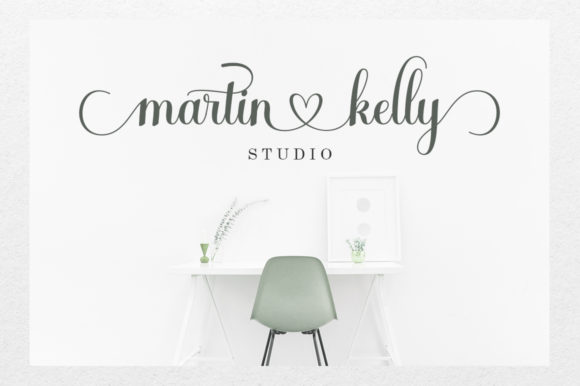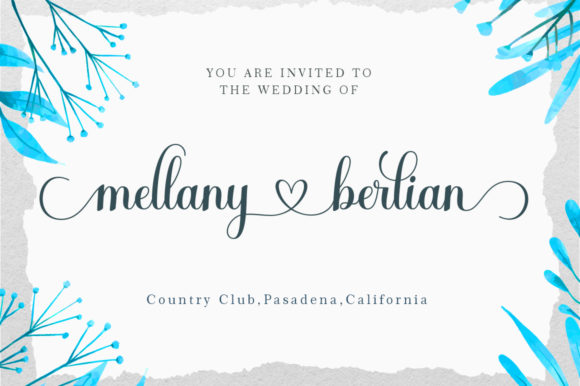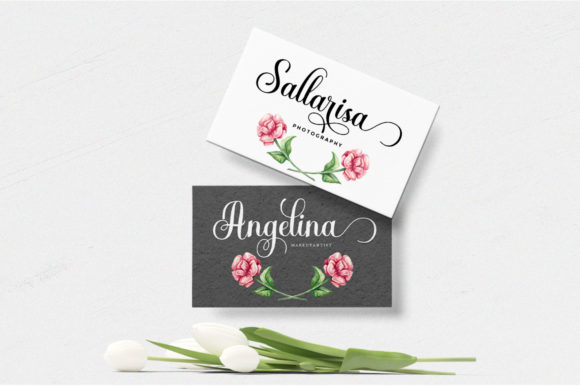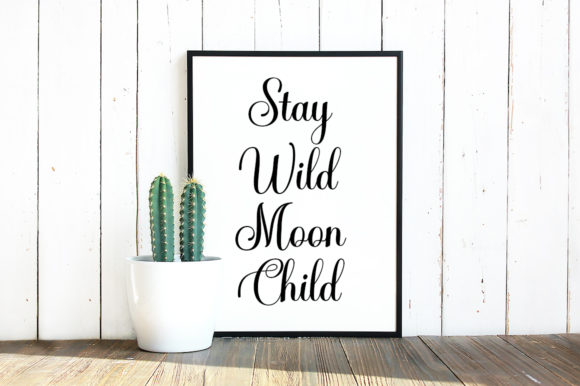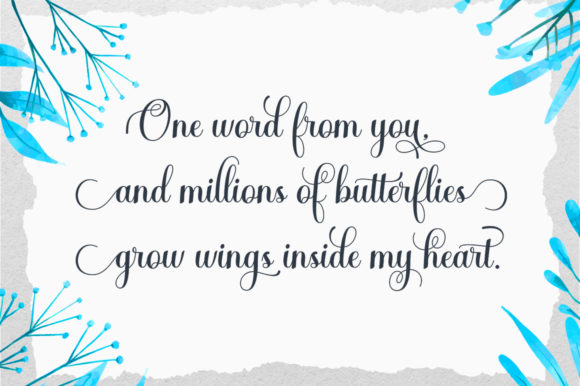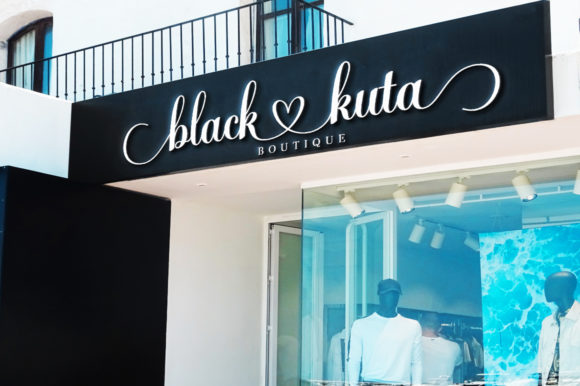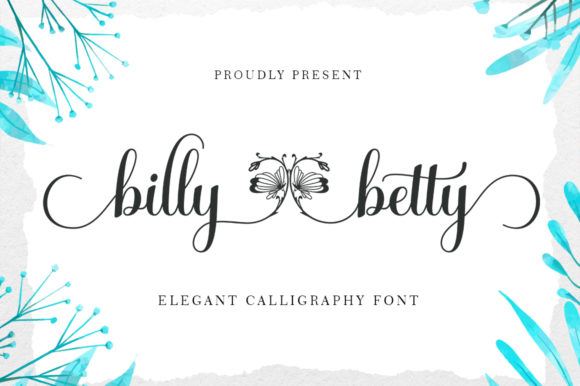
Billy Betty Font: The Elegant Calligraphy Font for Romantic Designs
Are you a designer or crafter looking for a font that exudes elegance and romance? Look no further than the Billy Betty font. This beautiful calligraphy font features hearts as ornaments, making it perfect for creating stunning designs that capture the heart. In this article, we’ll dive into the world of Billy Betty font, exploring its features, benefits, and uses.
What is Billy Betty Font?
Billy Betty is an elegant calligraphy font that is sure to capture your heart. With its romantic and dreamy feel, this font is ideal for a variety of design projects, from wedding invitations and stationery to branding and packaging. The font features beautiful swashes and glyphs, including hearts as ornaments, which add a touch of whimsy and playfulness to any design.
One of the standout features of Billy Betty font is its PUA (Private Use Area) encoding. This means that you can access all of the glyphs and swashes with ease, allowing you to create stunning designs with minimal effort. With PUA encoding, you can use the font with any design software that supports Unicode, making it easy to incorporate into your workflow.
Features of Billy Betty Font
Billy Betty font comes with a range of features that make it a versatile and elegant choice for designers and crafters. Some of the key features include:
- Elegant calligraphy style: Billy Betty font features a beautiful, flowing calligraphy style that is perfect for creating romantic and dreamy designs.
- Hearts as ornaments: The font includes hearts as ornaments, adding a touch of whimsy and playfulness to any design.
- PUA encoded: With PUA encoding, you can access all of the glyphs and swashes with ease, making it easy to create stunning designs.
- Multi-language support: Billy Betty font supports multiple languages, making it a great choice for designers and crafters who work with clients from around the world.
Uses for Billy Betty Font
Billy Betty font is a versatile font that can be used for a wide range of design projects. Some of the most popular uses for this font include:
- Wedding invitations and stationery: The romantic and dreamy feel of Billy Betty font makes it perfect for wedding invitations, stationery, and other wedding-related designs.
- Branding and packaging: The elegant calligraphy style of Billy Betty font makes it a great choice for branding and packaging projects, particularly for businesses that want to convey a sense of luxury and sophistication.
- Signs and displays: Billy Betty font can be used to create stunning signs and displays, particularly for businesses that want to add a touch of elegance and whimsy to their storefront or exhibition.
- Digital designs: Billy Betty font can be used for digital designs, such as social media graphics, blog headers, and email newsletters.
Tips for Using Billy Betty Font
To get the most out of Billy Betty font, here are a few tips to keep in mind:
- Experiment with different sizes and colors: Billy Betty font looks great in a variety of sizes and colors, so don’t be afraid to experiment and find the combination that works best for your design.
- Use the font with other design elements: Billy Betty font pairs well with other design elements, such as illustrations, graphics, and textures. Experiment with combining the font with other elements to create a unique and eye-catching design.
- Take advantage of PUA encoding: With PUA encoding, you can access all of the glyphs and swashes with ease. Take advantage of this feature to add extra details and interest to your design.
Billy Betty font is a beautiful and elegant calligraphy font that is perfect for designers and crafters who want to create romantic and dreamy designs. With its PUA encoding, elegant calligraphy style, and hearts as ornaments, this font is sure to capture your heart. Whether you’re working on a wedding invitation, branding project, or digital design, Billy Betty font is a versatile and elegant choice that’s sure to impress.